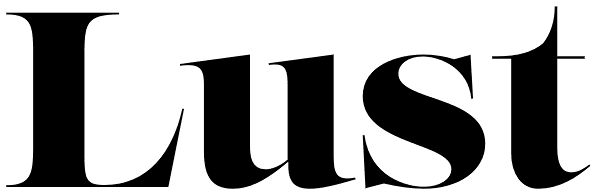
Lust
Check out the new Lust Pro & Lust Pro Didone to see how the typeface has grown and evolved! Confident and versatile, Lust is an exercise in indulgence—an attempt to create something over the top and vastly useful. If Lust seems both new and...